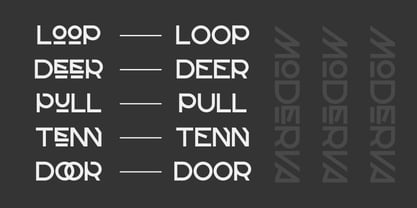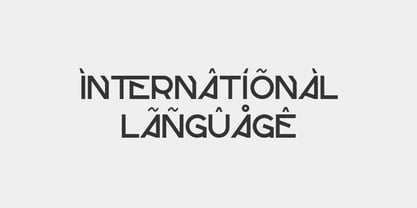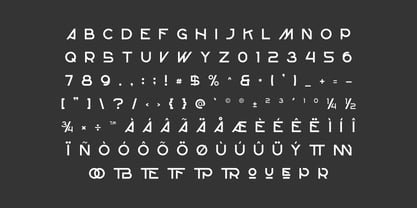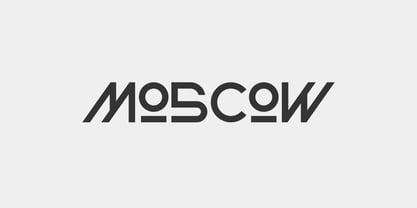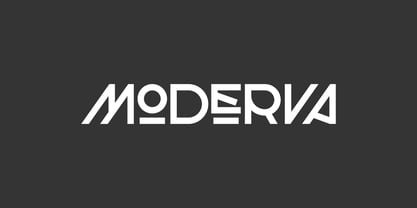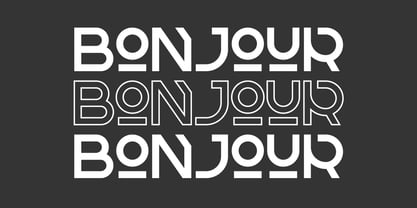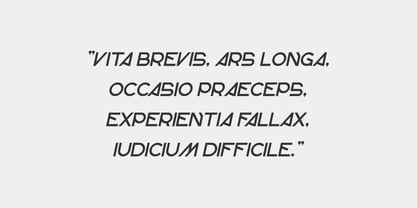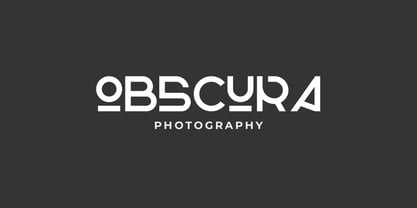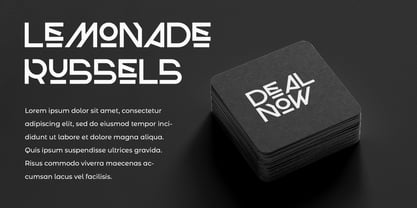
Moderva
by Artiveko
The Moderva Font Family was designed by Iwan Alwan and published by Artiveko. Moderva contains 2 styles and family package options.
Moderva is a modern geometric sans serif font that embodies clarity, structure, and sleek sophistication. Built on precise geometric shapes and clean lines, Moderva offers a contemporary feel that’s both professional and versatile. Its balanced proportions and minimal design make it ideal for branding, editorial layouts, web interfaces, product packaging, and any project where visual clarity and modernity matter.
Designed with a strong foundation in geometry, Moderva’s characters flow with mathematical harmony while maintaining a human touch. It features a complete set of uppercase and lowercase letters, multilingual support, and thoughtfully crafted alternates and ligatures to provide flexibility across applications. Whether you’re creating a tech startup identity, a clean UI, or a stylish print layout, Moderva delivers sharp aesthetics with effortless readability. Let your ideas speak with confidence and modern grace — with Moderva.